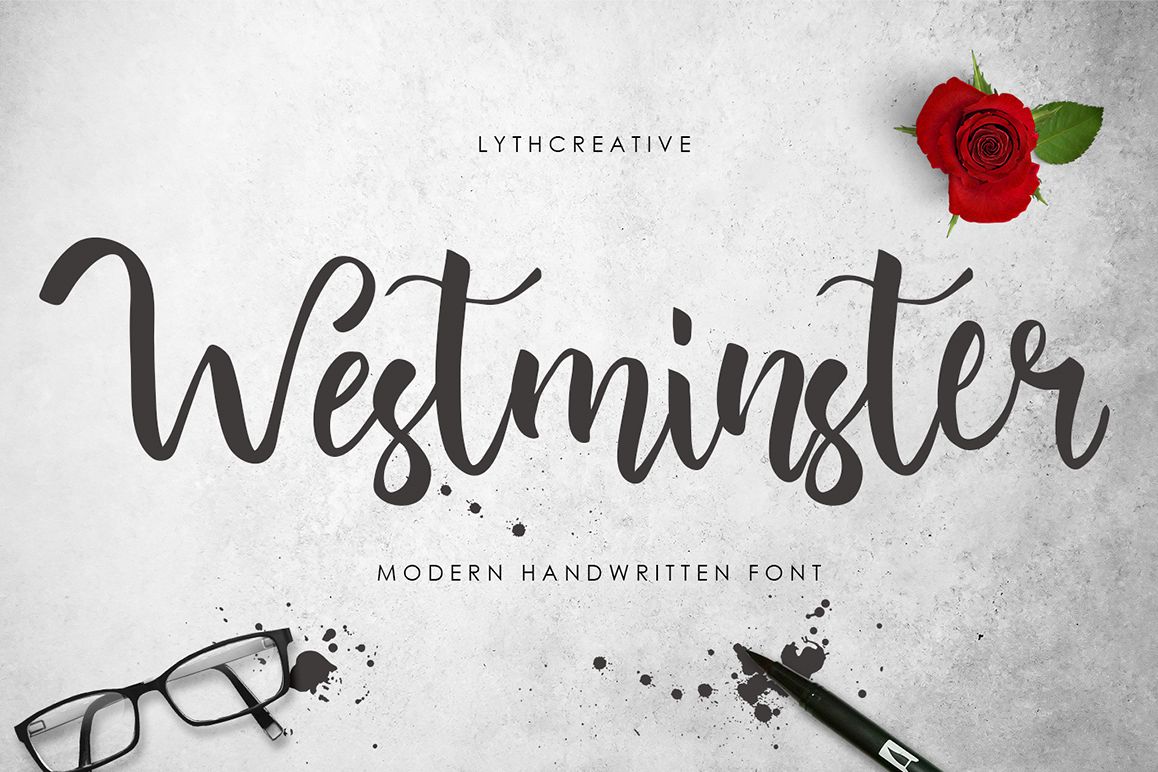
Westminster
Westminster-Regular
Westminster is a beautiful handwritten font with an unique style. IIt includes elegant movements and is perfect for adding some grace to your designs.It’s can be used for branding projects, logos, wedding designs, social media posts, advertisements, product packaging, product designs, labels, photography, watermarks, and any other design which needs a striking, yet elegant touch.